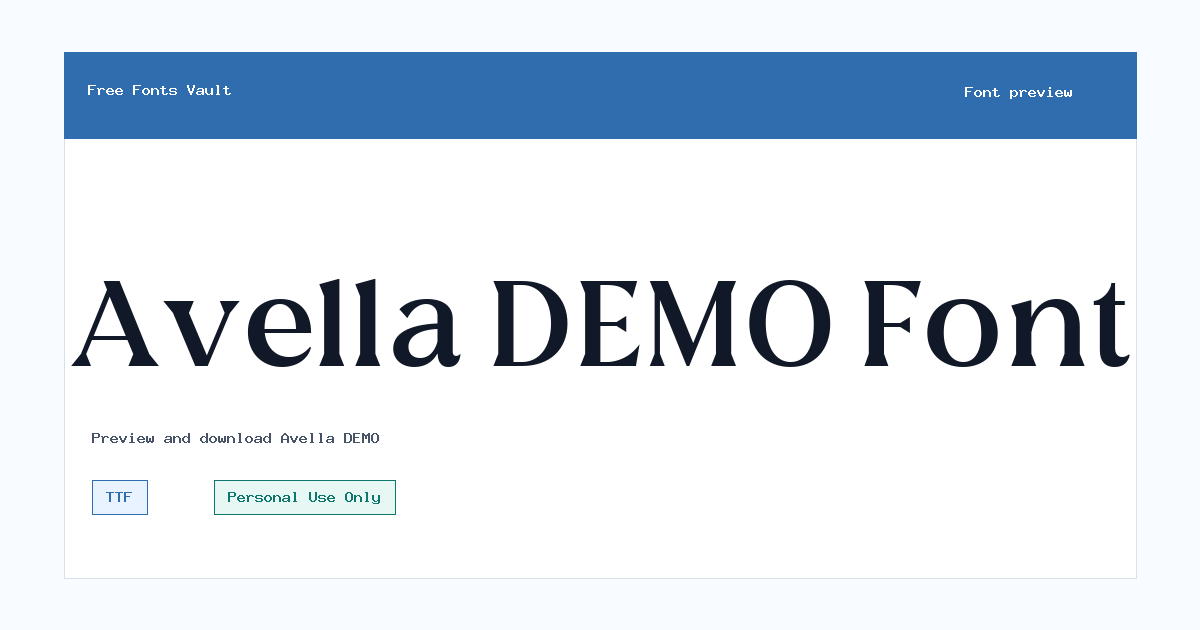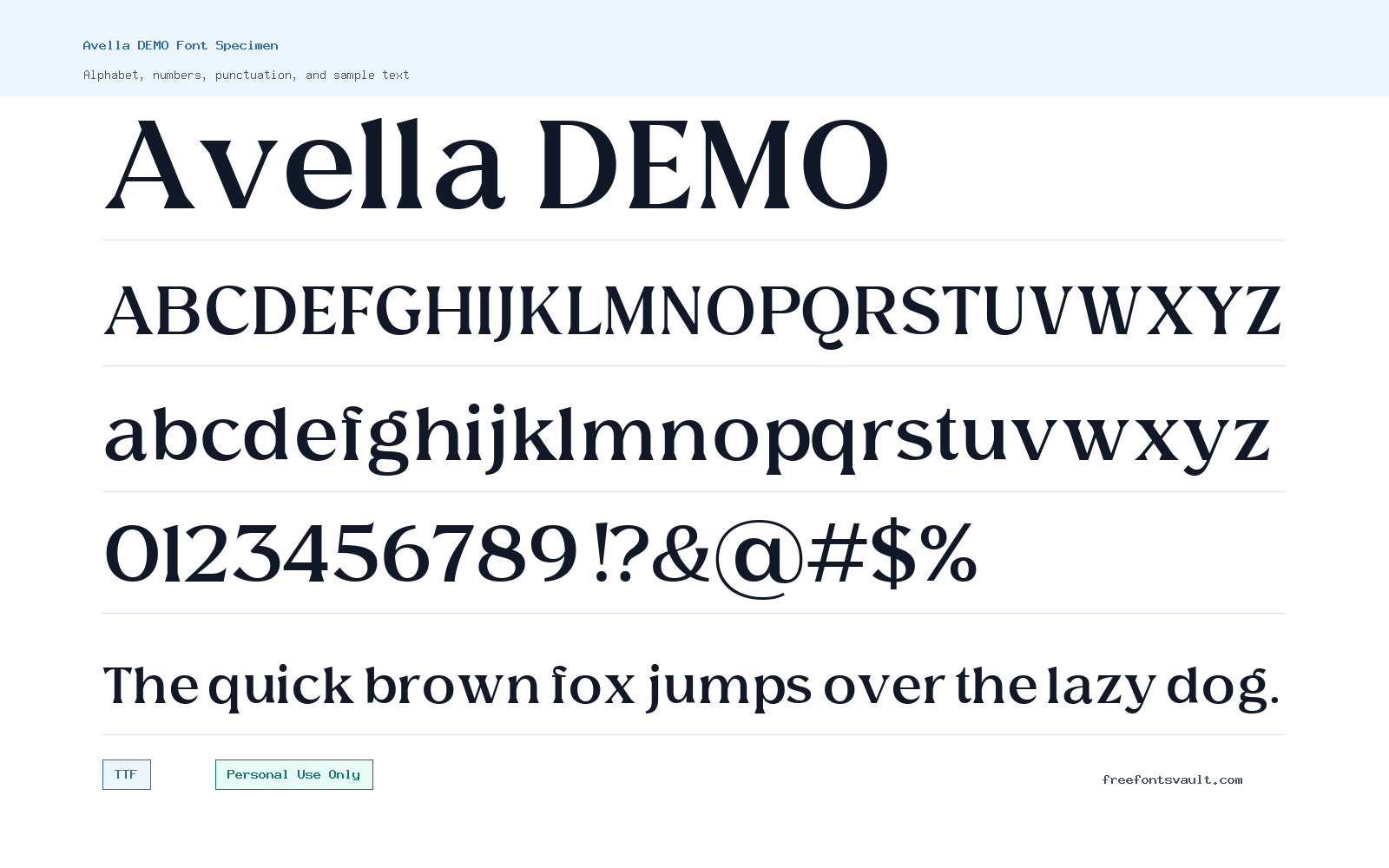
Avella DEMO
- Designer Say Studio
Avella DEMO font.
Avella DEMO is a personal-use font from Say Studio, shared as a Regular TTF file for testing in the browser and trying in your own design drafts.
Avella DEMO is best treated as a trial version for layout checks, mockups, and personal creative work. The family name and license text point to Avella as a serif font, so it is a sensible choice to test when you want a more formal text style than a plain sans serif. Use the preview box to check its capitals, lowercase rhythm, punctuation, and spacing before you download, especially if your design depends on a few important words.
- Regular 400 style for simple headline, title, and short text testing.
- Personal invitations, quote graphics, mood boards, and typography experiments.
- Short headings, names, display lines, and brand-style mockups where a serif tone fits.
- Previewing a serif look in draft layouts before choosing a final licensed font.
Who designed Avella DEMO?
The designer name listed for this font is Say Studio.